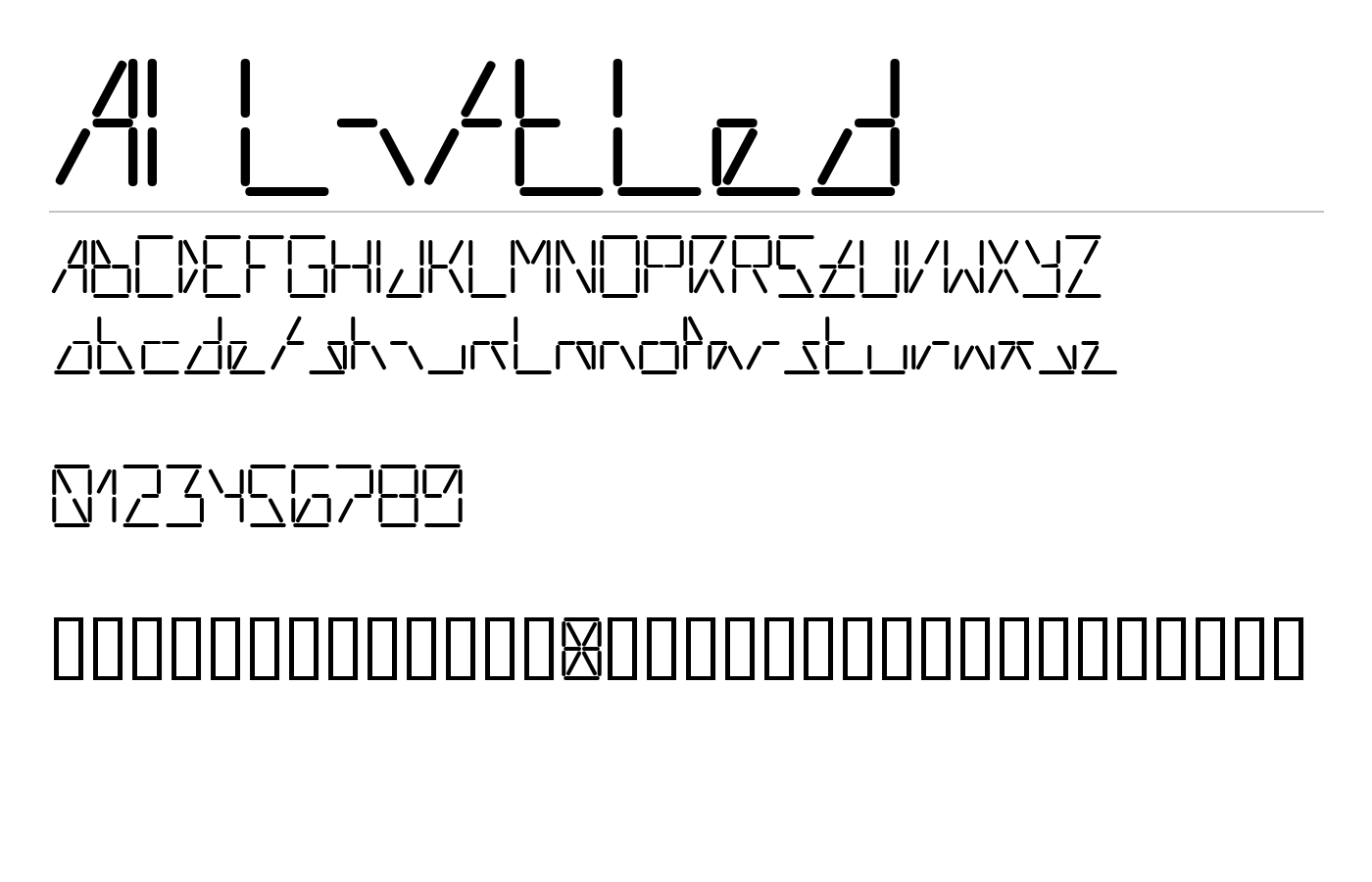
AI liftled Font is a futuristic, geometric sans serif with a technical, modular structure made of thin, uniform lines and sharp angles. It exudes a modern, sci-fi vibe, best suited for digital, tech, and experimental design projects where a clean, mechanical look stands out. Its unique letterforms and minimal stroke contrast make it ideal for logos, headlines, and creative displays rather than extended body text.
AI liftled Font
About AI liftled Font